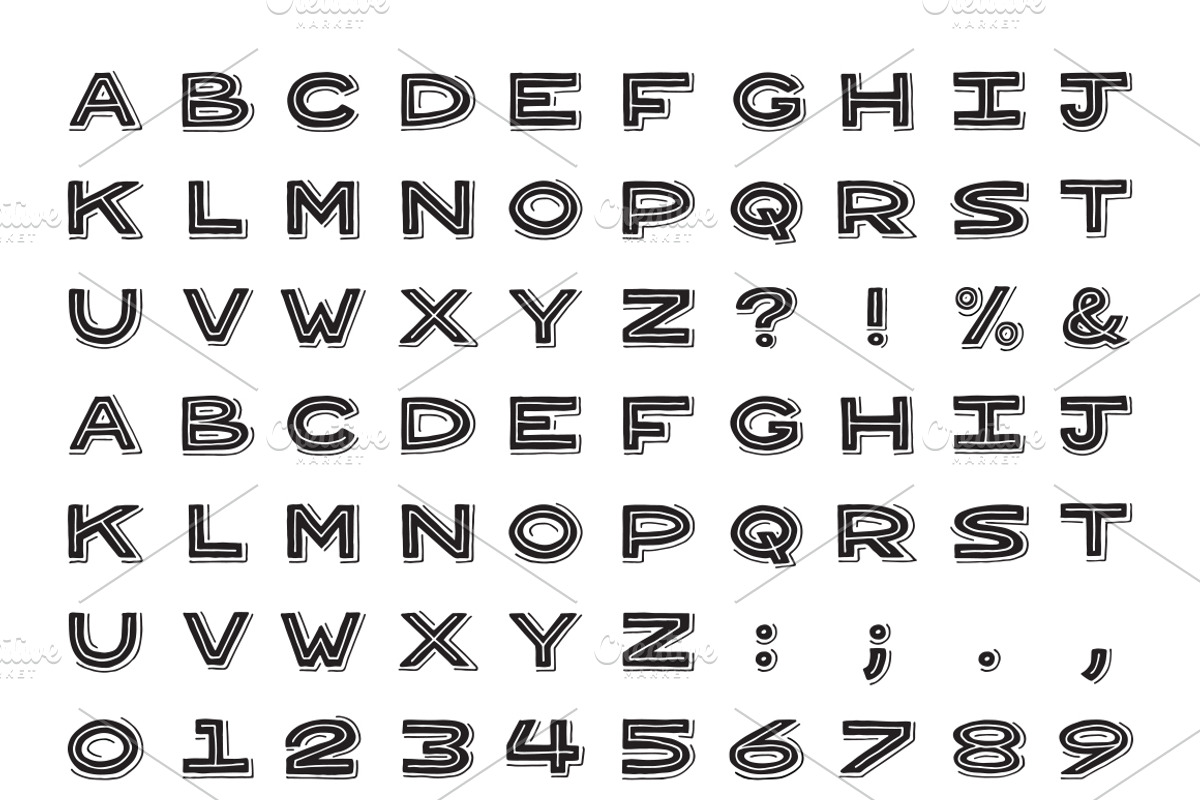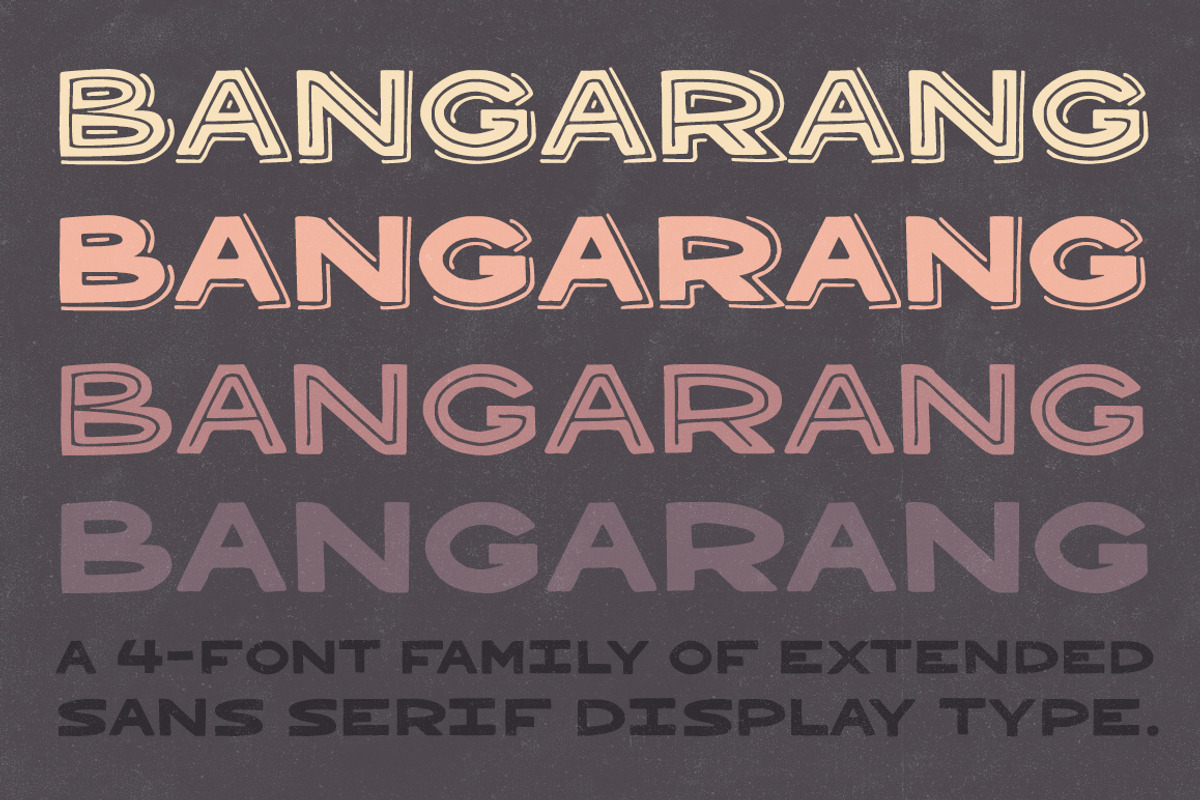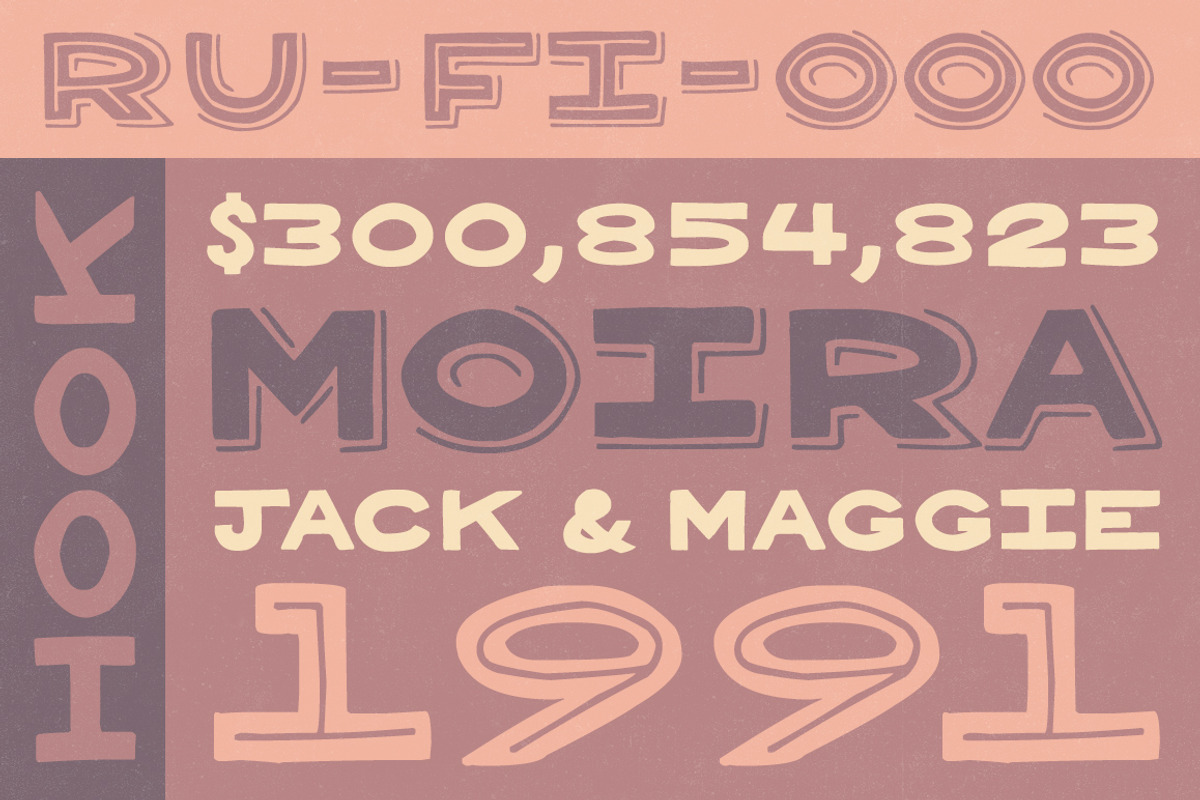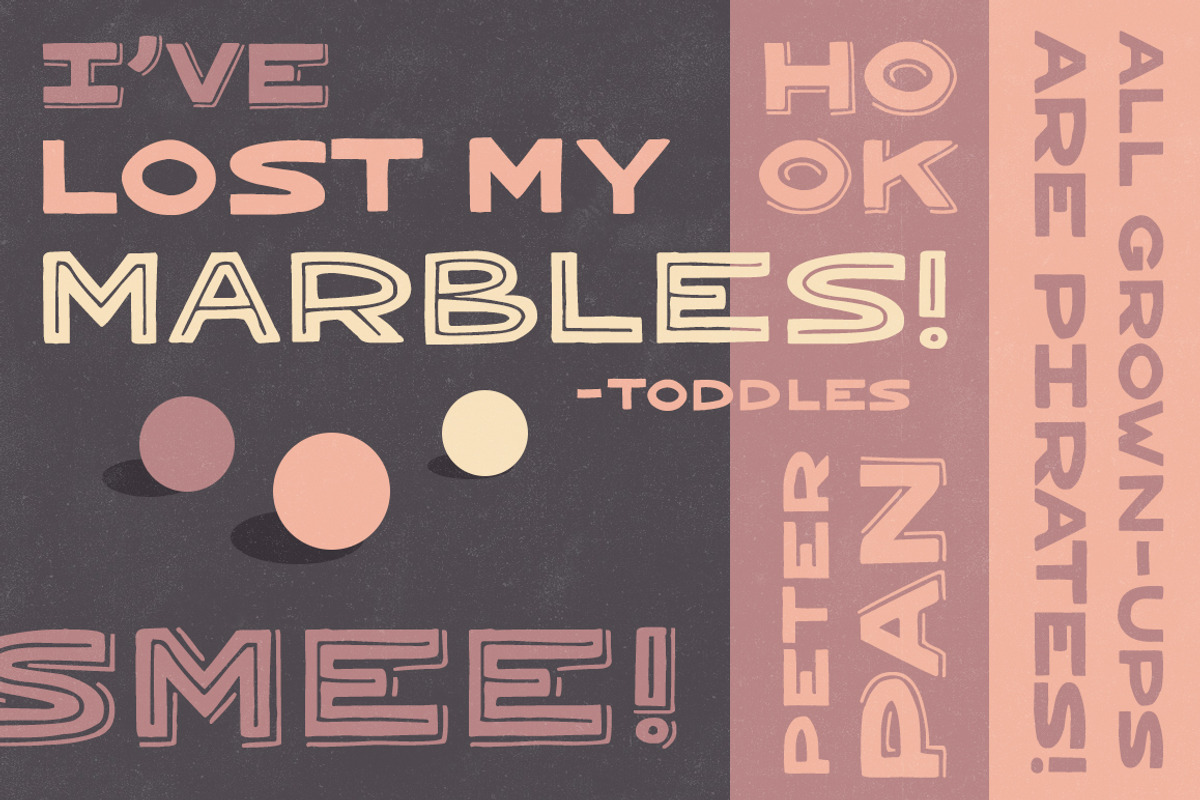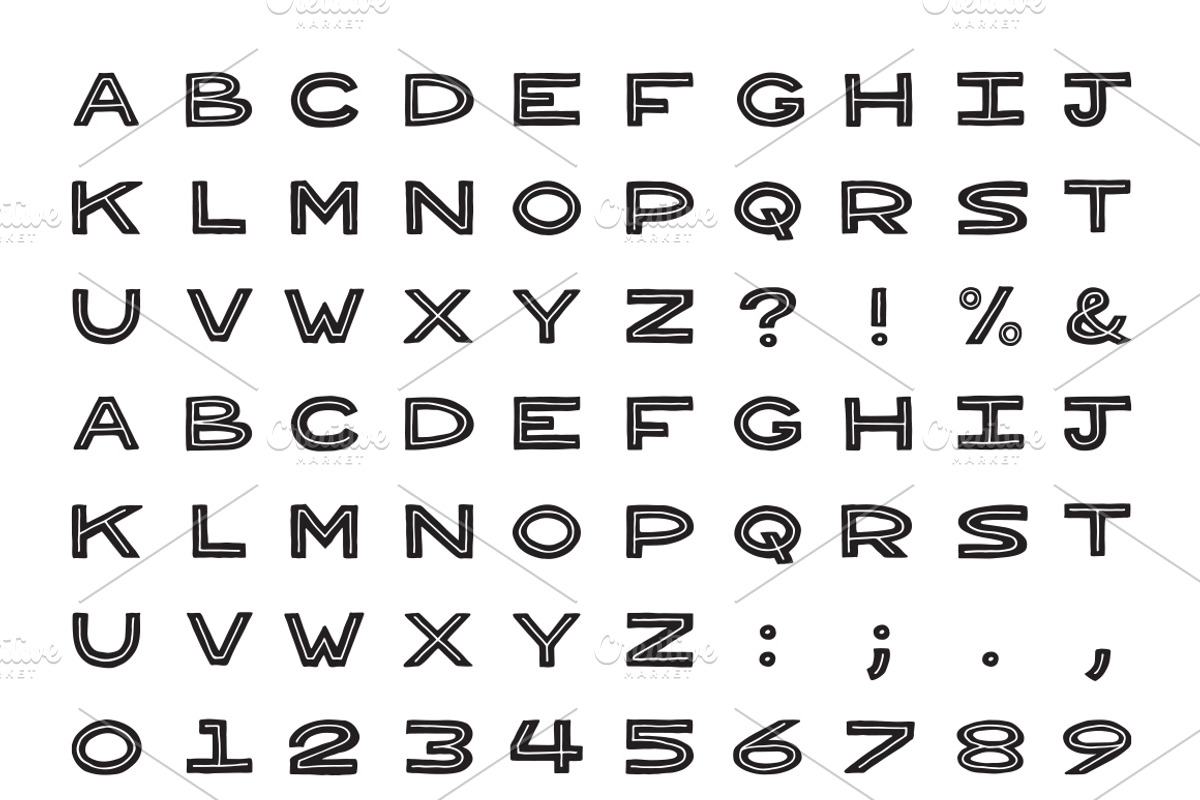
Bangarang 4 Font Family
Bangarang 4 Font Family by Satchel & Sage is a font selected for branding, posters, packaging, typography.
- Bangarang includes four styles which are as follows:Regular, Inline, Double, and Shadow.
- The Bangarang fonts combine classic uppercase letterforms with a loose drawing style.